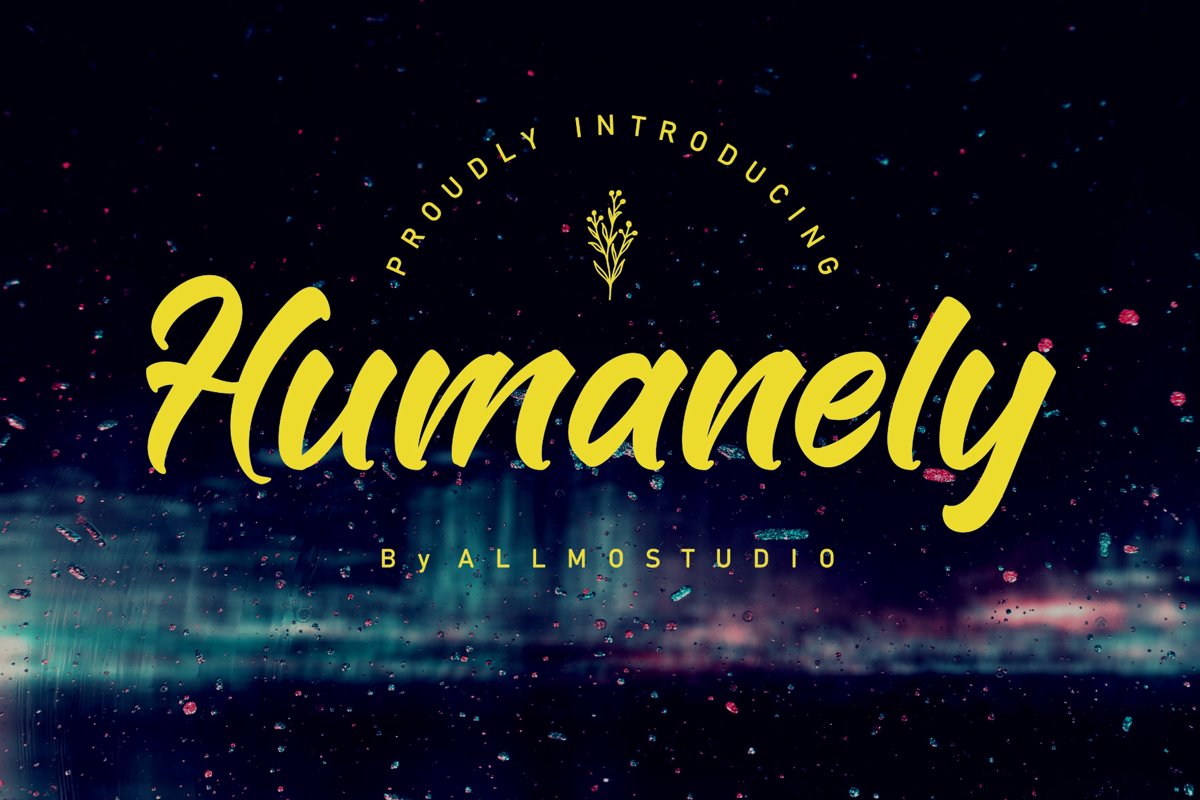
Humanely Font
I'm back with the Humanely font which adopts from brush style
and comes with uppercase, lowercase, numerals,
punctuations.
This font is great for your creative project such as logos, posters, invitations cards,
packaging, badges, logotype, apparel design and Label.